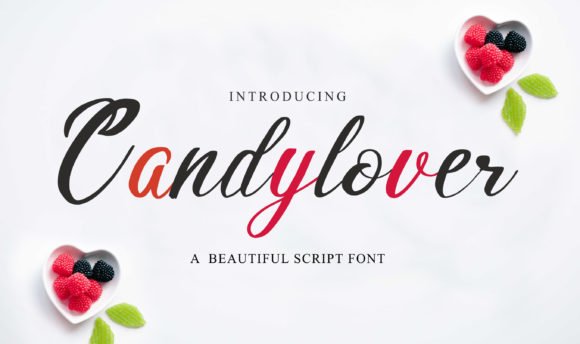
Discover the Sweet Taste of Design with Candylover Font
Do you ever find yourself stuck in a creative rut, struggling to come up with the perfect font to elevate your design? We’ve all been there. But what if I told you that the solution to your design woes lies in the elegant, flowing curves of the Candylover Font?
This stunning handwritten font is more than just a pretty face – it’s a versatile tool that can add a touch of sophistication to any project. Whether you’re designing a wedding invitation, a brand logo, or a social media graphic, the Candylover Font is sure to make your design stand out. Its timeless style and distinct character make it a valuable asset for designers looking to add a personal touch to their work.
Candylover Font Key Features
- Font Family: Candylover Font
- Unique Characteristic: Features a playful, hand-drawn design with bold lines and vibrant colors, ideal for creating eye-catching graphics and logos.
Candylover Font Review
I recently had the chance to work with the Candylover Font, and I must say it’s a unique and playful addition to any design project. Here’s what I liked and didn’t like about it:
- ✨ The font’s playful and whimsical feel is perfect for projects that need a touch of fun and energy. It’s great for branding, packaging, and other design elements that require a lighthearted tone.
- ✨ The font is highly customizable, allowing designers to adjust the size, color, and style to fit their specific needs.
- ✨ The font includes a wide range of characters and symbols, making it suitable for a variety of languages and use cases.
- ⚠️ The font may not be suitable for formal or professional projects, as its playful nature can come across as unprofessional.
- ⚠️ Some characters and symbols may not render correctly in certain fonts or software, which can be frustrating for designers.
Overall, I think the Candylover Font is a fun and versatile addition to any design project. While it may have some limitations, its unique feel and high level of customization make it a great choice for projects that need a touch of personality and flair.
To get the most out of the Candylover Font, try:
- Using it in combination with bright, bold colors to create a playful look.
- Experimenting with different font sizes and styles to add visual interest.
- Using it to create eye-catching headlines and titles.
The Candylover Font is perfect for:
- Children’s birthday party invitations and decorations.
- Food and candy-themed branding and marketing materials. Alternatives to Candylover Font
- Use the font to create headings for each dessert item, such as “Fresh Fruit Tarts” or “Decadent Chocolate Brownies.”
- Pair the font with colorful illustrations of desserts to make the menu board visually appealing.
- Use bold and bright colors to match the playful style of the Candylover Font.
- Experiment with different illustration styles, such as hand-drawn or digital art, to add texture and interest to the design.
- Use the font to create the main text of the invitation, such as the wedding date and time.
- Pair the font with colorful illustrations of candies or flowers to add a playful touch.
- Use a mix of bold and cursive text to create a whimsical feel.
- Experiment with different paper textures and colors to match the playful style of the Candylover Font.